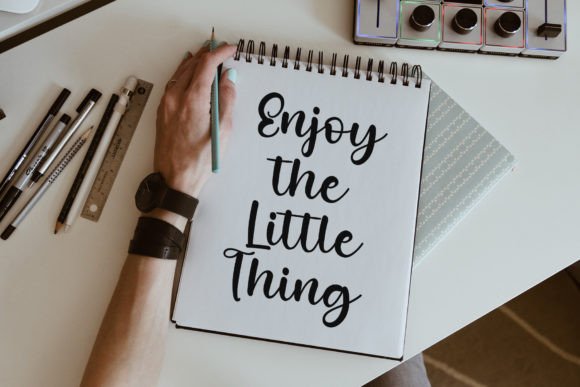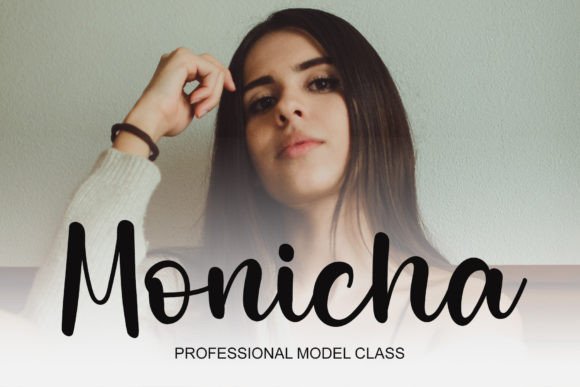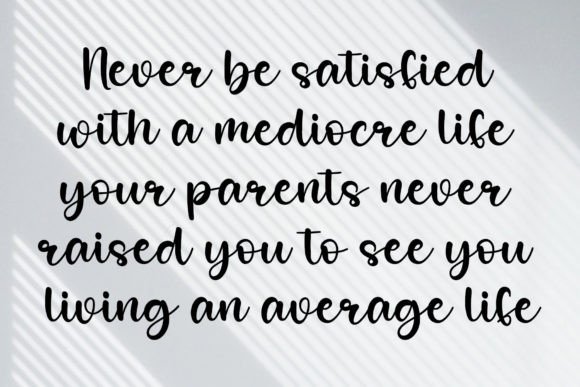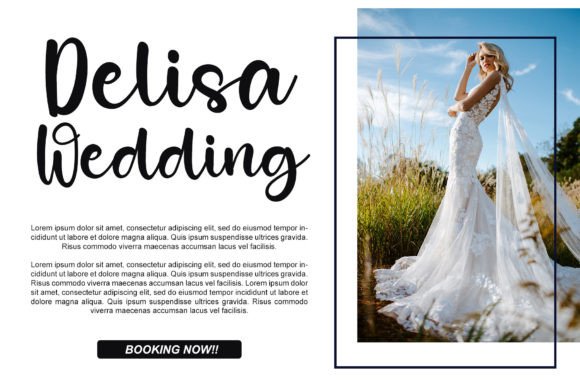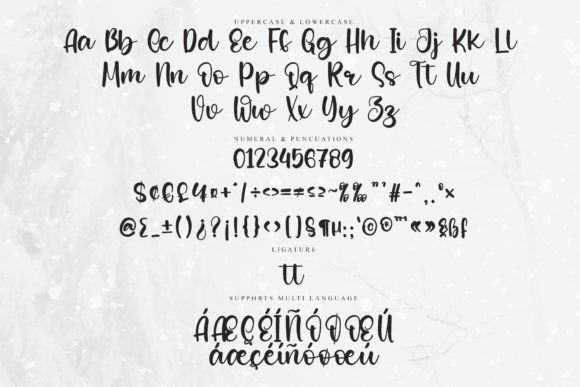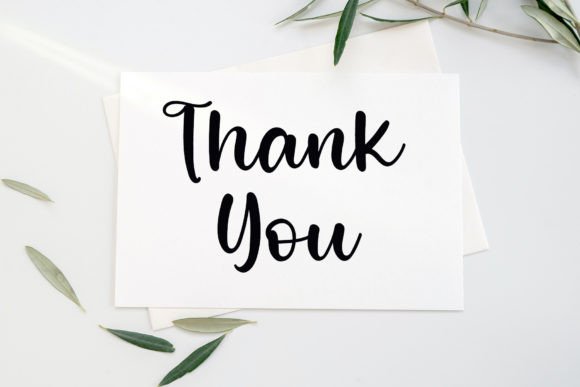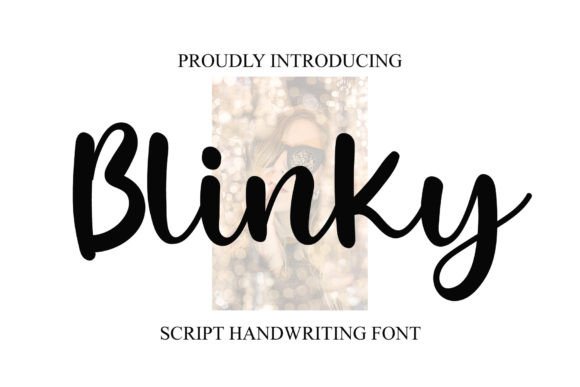
The Sweet Charm of Blinky Font: A Designer’s Delight
I’ll never forget the time I was working on a wedding invitation project, and my client asked for a font that was ” elegant, yet playful; romantic, yet modern.” I scoured the internet, tried out dozens of fonts, but nothing seemed to fit the bill. That was until I stumbled upon Blinky Font. This sweet and cursive handwritten font has been a game-changer for me, and I’m excited to share its charm with you! 😊
An Honest Review of Blinky Font
- 💕 The gentle, cursive strokes that exude warmth and friendliness
- 🎉 The perfect balance of elegance and playfulness, making it suitable for various design projects
- 🔍 The font’s versatility – it looks great in both digital and print formats
- 👍 The ease of use, even for those who aren’t font experts
While Blinky Font is an excellent choice, there are a few things to keep in mind:
- 🤔 Some letters, like the lowercase “g” and “y,” have a slightly quirky feel that might not appeal to everyone
- ⚠️ The font may not be suitable for very long blocks of text, as it can become a bit overwhelming
- Experiment with OpenType features, like swashes and ligatures, to add a personal touch
- Explore the font’s glyphs and stylistic alternates to create unique designs
The Story Behind Blinky Font
Blinky Font was created by a talented designer who wanted to capture the essence of handwritten elegance. Inspired by the beauty of cursive writing, the designer crafted a font that would be both playful and sophisticated. The result is a font that’s perfect for a wide range of design projects, from weddings to branding and marketing materials.
Q: Is Blinky Font suitable for body text?
While Blinky Font is beautiful, it’s best used in moderation. For long blocks of text, a clearer font might be more suitable.